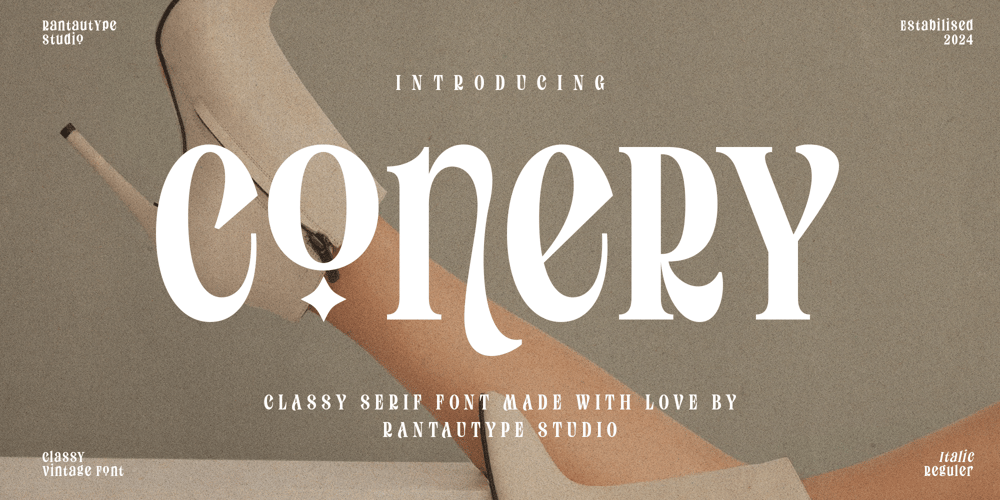
Conery
Conery font
Conery Font Family was designed by Yudi Pratama Chandra and published by RantauType. Conery contains 2 styles and family package options. Conery is classy serif font with elegant charm and prestigious shape captures the essence of fashion. Conery is a perfectly choice for any creative endeavor, chic, lifestyle design such as logos, advertisements, stationery, branding project, display and magazine, invitation, corporate brand, product design, label, business project and many other project with elegant touch.What you have: Standart Glyphs Numberial and Functional Ligature and alternate Works on PC & Mac Simple installations Accessible in Adobe Illustrator, Adobe Photoshop, Adobe InDesign, even work on Microsoft Word. Fonts include multilingual support for: Afrikaans, Albanian, Basque, Bemba, Bena, Breton, Catalan, Chiga, Cornish, Danish, Dutch, English, Estonian, Filipino, Finnish, French, Galician, German, Icelandic, Indonesian, Irish, Italian, Kinyarwanda, Luxembourgish, North, Norwegian, Portuguese, Romansh, Rombo, Rundi, Scottish, Gaelic, Sena, Shambala, Shona, Soga, Somali, Spanish, Swahili, Swedish, Swiss, German.Thank you for your purchase!Hope you enjoy with our font!